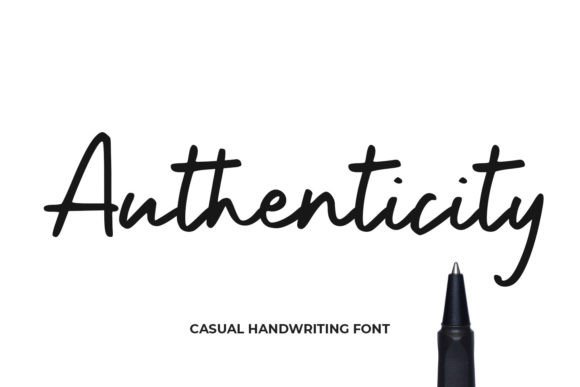
Authenticity Font
Authenticity– casual handwriting font –
Authenticity is great for quotes, cards, banners, social media, and anything of your projects that needs a simple but elegant touch.